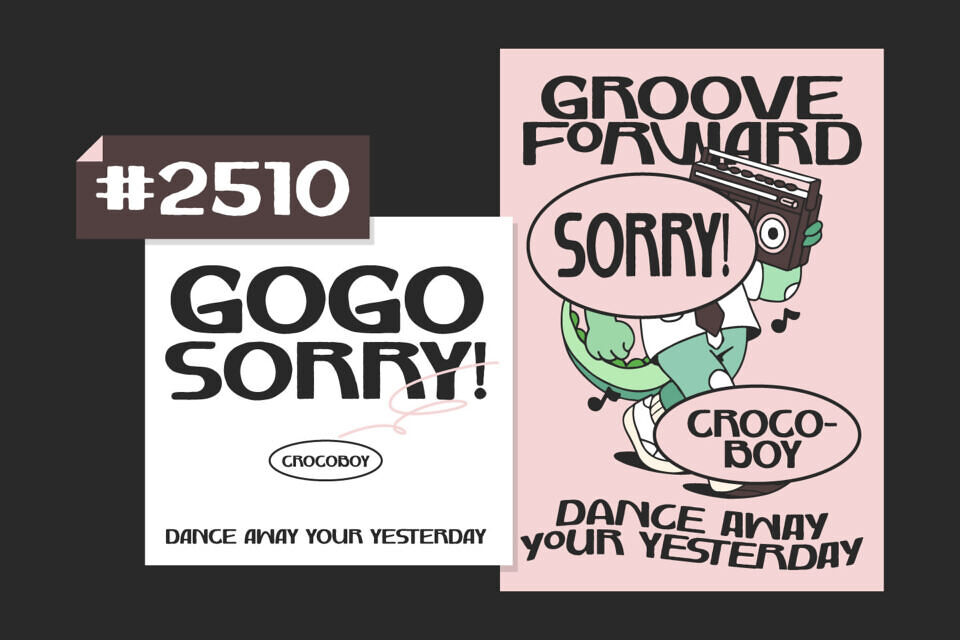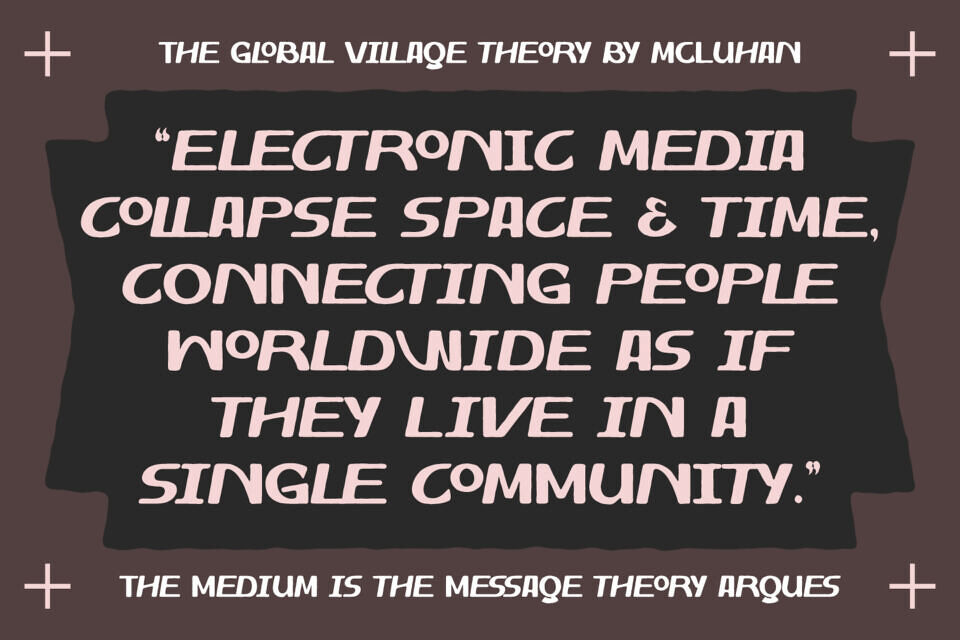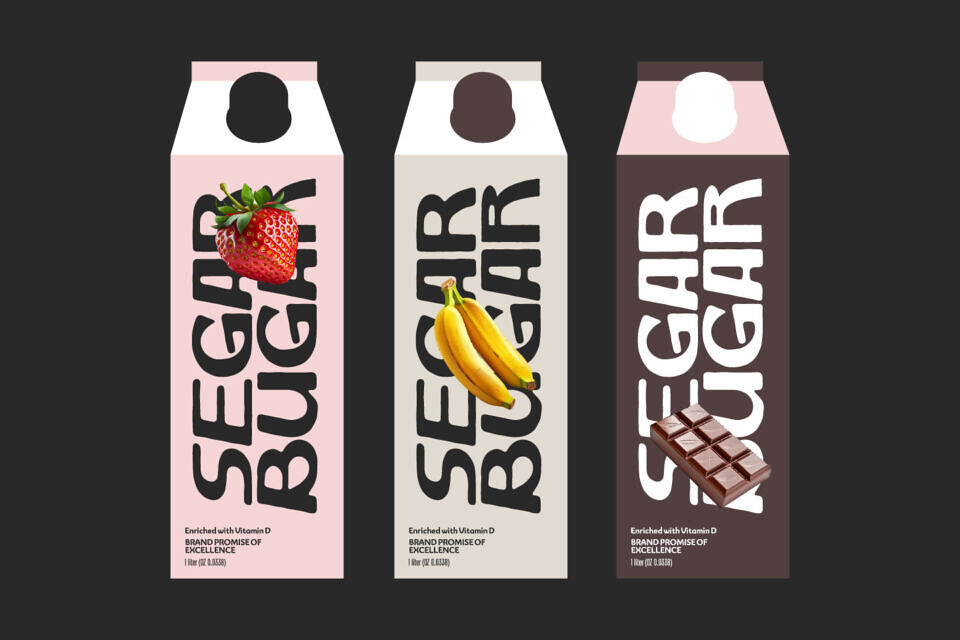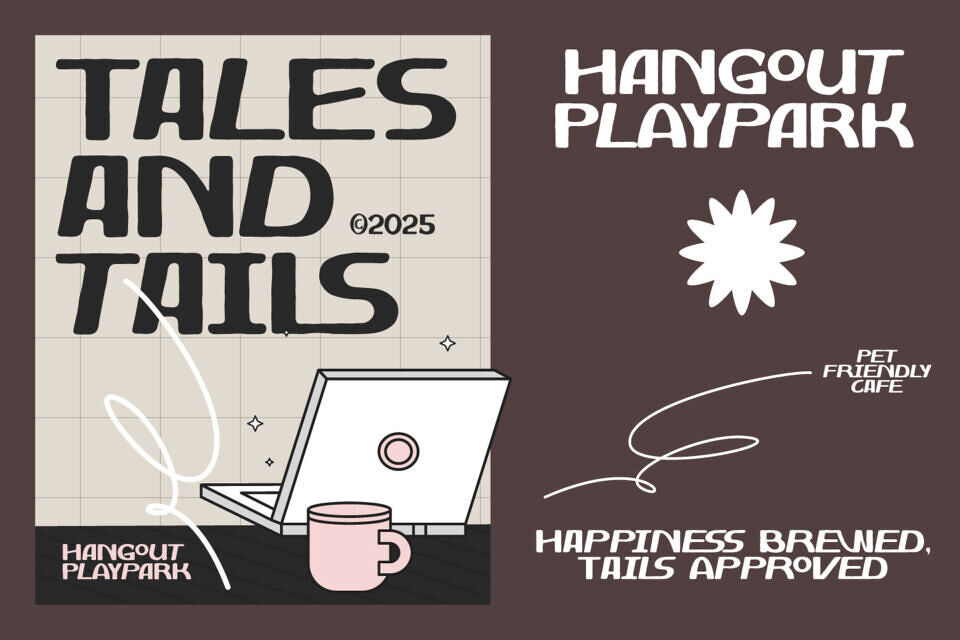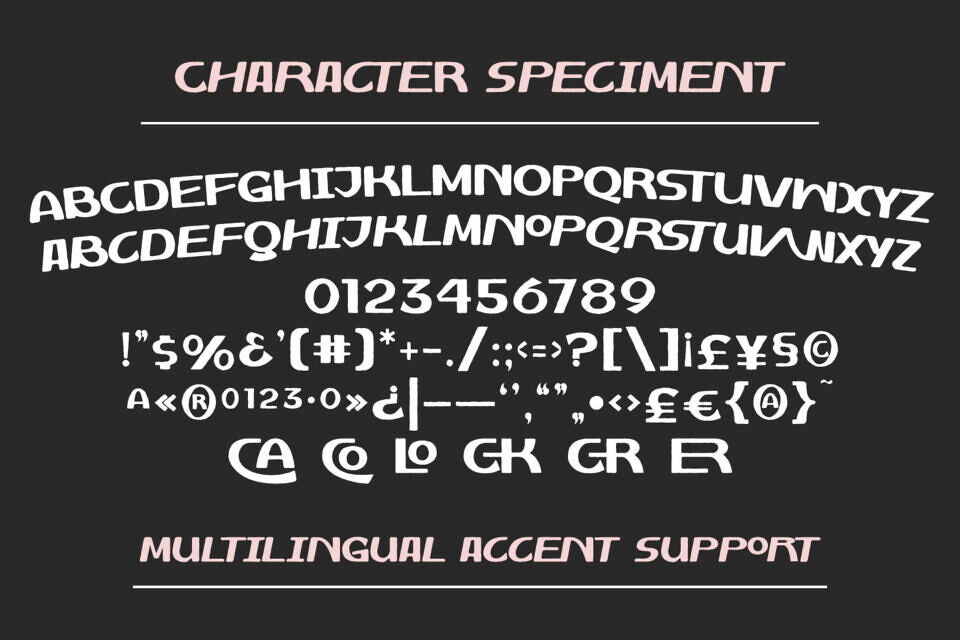
Borneo Amber Rough Font
Borneo Amber is a modern vintage typeface blending nostalgic warmth with contemporary boldness. Its clean geometry and smooth curves create a harmonious balance between industrial precision and handcrafted charm. Inspired by early 20th-century signage, this font captures retro appeal while maintaining modern readability.
Ideal for branding that values heritage and creativity, it enhances packaging, logos, posters, and editorial design. With all-caps precision and multilingual support, Borneo Amber delivers authenticity, confidence, and timeless style—perfect for vintage-inspired branding, cafe identities, apparel, and modern nostalgia projects.